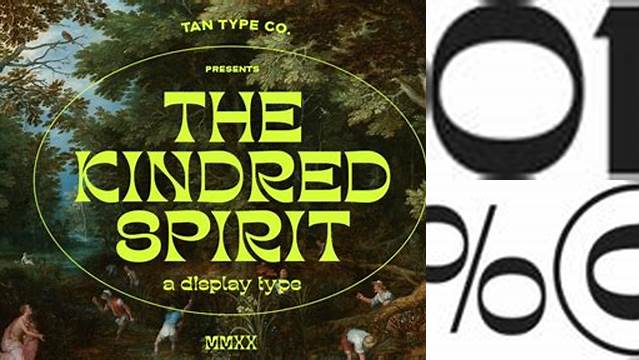
Hey guys! Are you looking for a font that can add a touch of elegance and sophistication to your designs? Look no further! The Tan Kindred Display OTF font is here to rescue your design projects. This font is a versatile typeface that's perfect for a wide array of applications, from branding and logos to headlines and posters. It boasts clean lines, a modern aesthetic, and a distinct personality that will make your work stand out. If you are trying to find a display font that combines elegance with modernity, the Tan Kindred Display OTF font might just be your best bet. Its distinctive character set can add a touch of sophistication to any project, making it perfect for logos, headings, and even body text in certain contexts. The font's clean lines and balanced letterforms ensure readability while maintaining a stylish appearance, a critical aspect for professional designs. Whether you're designing a website, creating marketing materials, or working on a personal project, the right font can significantly enhance the overall look and feel. So, if you're looking to elevate your design game, keep reading to learn more about this fantastic font and how to get your hands on it.
This font’s charm lies in its ability to blend contemporary design principles with a classic touch, making it a favorite among designers aiming for a modern yet timeless aesthetic. The Tan Kindred Display OTF font isn't just about looking good; it's about communicating effectively. Its clear and legible design ensures that your message is conveyed clearly, whether you're crafting a bold headline or a concise paragraph. The font’s adaptability makes it an excellent choice for diverse projects, ensuring that your design remains consistent across different media. Imagine using it for a sleek website header, a sophisticated business card, or even the title of a book. The possibilities are endless, and the impact is undeniable. So, before you jump into your next design endeavor, consider how the Tan Kindred Display OTF font can transform your vision into a stunning reality. It’s not just a font; it’s a tool to express your creativity and connect with your audience on a deeper level. The versatility of this font shines through in its ability to adapt to various design styles, from minimalist to more elaborate compositions. It holds its own in both digital and print formats, providing a seamless experience for your audience. If you are looking to inject a dose of modern elegance into your creative projects, Tan Kindred Display is the way to go.
The Tan Kindred Display OTF font stands out in a crowded field of typefaces for several reasons. First and foremost, its aesthetic appeal is undeniable. It strikes a perfect balance between modern and classic design elements, making it incredibly versatile. This means you can use it in a wide range of projects, from branding for a tech startup to designing invitations for a sophisticated event. Its clean lines and well-defined letterforms ensure readability, which is crucial for any design project. This ensures that your message is not only visually appealing but also easily understood. The font’s elegant curves and sharp angles create a visually dynamic composition that captures the viewer’s attention without overwhelming them. One of the key benefits of using the Tan Kindred Display font is its ability to convey a sense of professionalism and sophistication. This makes it an ideal choice for businesses and individuals looking to establish a strong brand identity. Whether you're designing a logo, crafting marketing materials, or creating a website, this font can help you communicate your message with clarity and style. Furthermore, the Tan Kindred Display OTF font is designed with compatibility in mind, ensuring it works seamlessly across different platforms and devices. This is particularly important in today's digital age, where designs need to look consistent regardless of where they are viewed. You can rest assured that your text will render beautifully whether it's on a desktop computer, a mobile phone, or a printed page.
Another compelling reason to choose this Tan Kindred Display OTF font is its unique character. While many fonts can feel generic or overused, this one has a distinct personality that will set your designs apart. It's confident without being aggressive, elegant without being pretentious, and modern without being trendy. This makes it a timeless choice that will continue to look good for years to come. In addition to its aesthetic qualities, the Tan Kindred Display font is also highly functional. It comes in a variety of weights and styles, allowing you to create visual hierarchy and add emphasis to key elements in your design. This flexibility is essential for creating layouts that are both visually appealing and easy to navigate. Consider, for example, using a bold weight for headings and a lighter weight for body text. This simple technique can make a significant difference in the overall readability and impact of your design. The attention to detail in the design of the Tan Kindred Display font is evident in every glyph. Each character has been carefully crafted to ensure a harmonious and cohesive appearance. This level of craftsmanship is what sets this font apart from many others and makes it a worthwhile investment for any serious designer. When you choose Tan Kindred Display, you're not just getting a font; you're getting a design asset that will elevate your work to the next level.